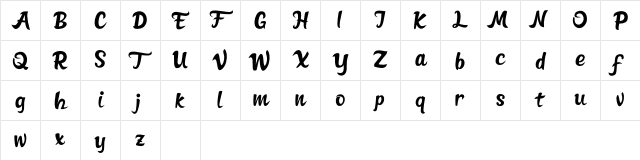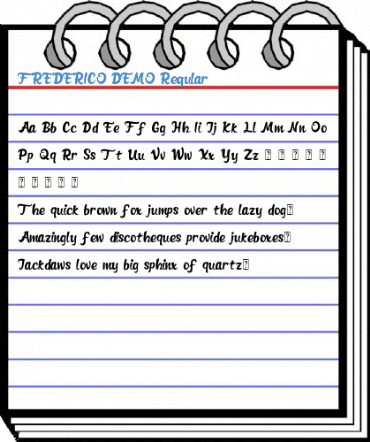
Complete FREDERICO DEMO Regular glyph index. Displaying only characters natively supported by FREDERICO DEMO Regular font.
FREDERICO DEMO is a composed and adaptable typeface that performs quietly and consistently across a wide range of design contexts.